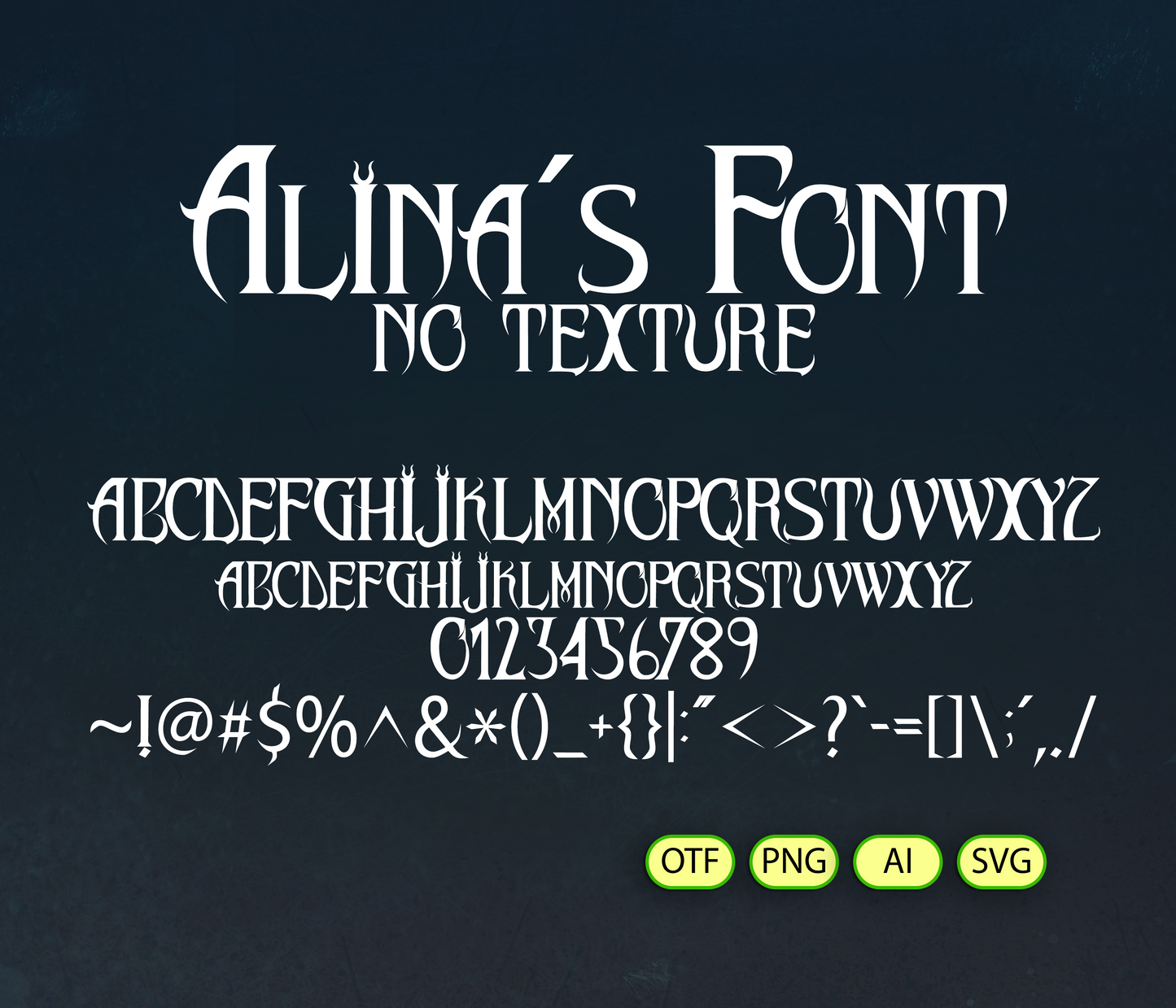
Dark Fairy Queen Gothic Font
Dark Fairy Queen Gothic Enchantment Style
Enter the shadowy realm of vengeful magic and cursed elegance with our Dark Fairy Queen Gothic Enchantment font, capturing the essence of malevolent sorcery and twisted fairy tale darkness. Perfect for gothic fantasy creators, dark magic designers, villainous storytellers, and creative professionals, this font delivers the menacingly elegant yet powerfully mystical, darkly enchanting atmosphere of corrupted fairy tale characters to your projects. Craft wickedly sophisticated invitations, dark enchantment merchandise, or digital content with the regally sinister, magically corrupted energy of fallen fairy stories.
Our Dark Fairy Queen Gothic Enchantment font features sharply elegant, thorn-inspired letterforms and mysteriously regal characters reflecting the hauntingly beautiful yet menacing aesthetic of dark fairy scenarios. Ideal for:
- Gothic Fantasy Events: Design darkly elegant invites, posters, and banners for villain-themed parties, dark magic experiences, and gothic enchantment gatherings
- Dark Magic Design: Perfect for book covers, gothic promotions, and dark fairy-themed accessories that capture corrupted elegance essence
- Digital Media: Enhance websites, blogs, and social media with wickedly elegant headers and graphics that express dark enchantment and villainous sophistication
- Entertainment Content: Add authentic character to gothic fantasy materials, dark fairy designs, and promotional materials for mysteriously elegant events
- Personal Projects: Bring darkly magical appeal to scrapbooking, DIY crafts, and home decor inspired by the aesthetics of corrupted fairy adventures